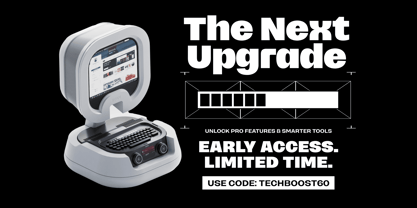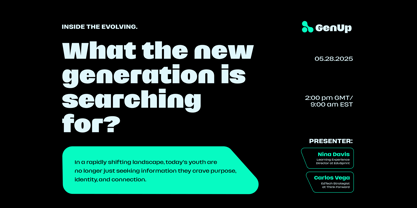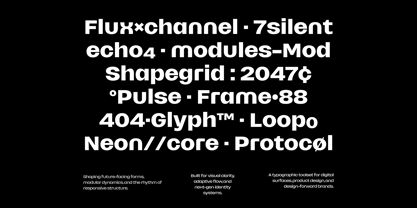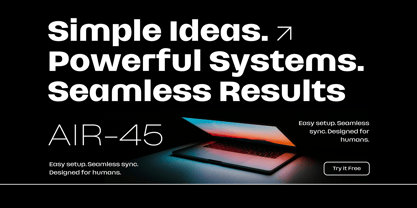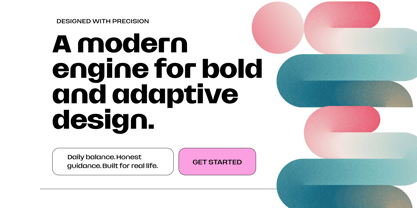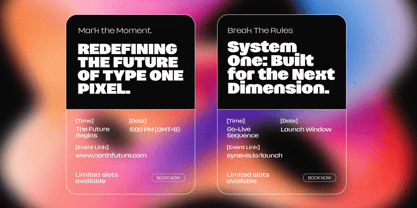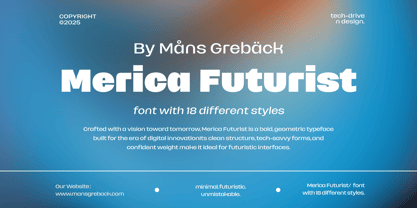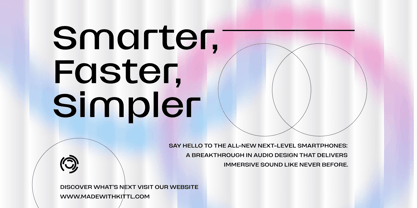
Merica Futurist Variable
by Mans Greback
The Merica Futurist Variable Font Family was designed by Måns Grebäck and published by Mans Greback. Merica Futurist Variable contains 1 styles. More about this family
Merica Futurist Variable is a modern typeface created with a clear vision of tomorrow. Designed for the digital age, it combines a sleek, minimal architecture with tech-oriented curves and balanced proportions. Its confident stance and structured rhythm make it ideal for futuristic themes, delivering a streamlined visual impact that feels at home in advanced interfaces and modern branding. Crafted with precision, the lettering’s balance of sharp geometry and gentle curvature communicates innovation without losing approachability. Whether displayed in ultra-thin or heavy weights, it retains a distinctive clarity, speaking fluently in both bold statements and subtle whispers. The font is built with advanced functionality and guaranteed top-notch quality, containing stylistic and contextual alternates, ligatures and more automatic and manual features; all to give you full control and customizability. It has extensive lingual support, covering all Latin-based languages, from North Europa to South Africa, from America to South-East Asia. It contains all characters and symbols you'll ever need, including all punctuation and numbers. Designed by Mans Greback, whose creative range blends technical precision with strong visual personality, Merica Futurist stands as a bridge between modernist ideals and next-generation design.
Måns Grebäck is a type designer and font creator specializing in script typography, but with a portfolio containing a vast selection of styles. Typefaces from Måns Grebäck are used as company and product logotypes, as well as headlines and in advertisement by a wide range of industries world-wide. Founded by Måns Grebäck in 2010, Mans Greback AB originally went under the name of Mawns Fonts and later Aring Typeface AB. While the foundry has its seat Örebro, Sweden, Måns also lives in Portugal. The Premium Foundry page can be viewed Here.